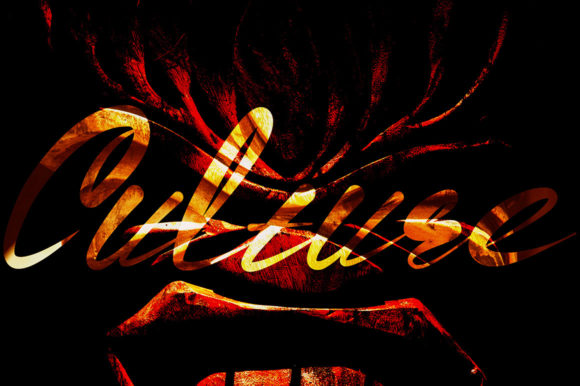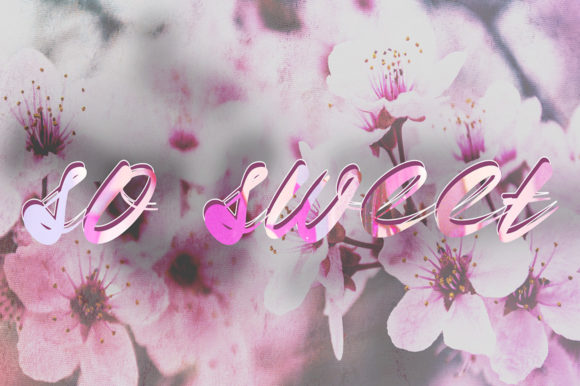
Discover the Elegance of Culture Font
Have you ever found yourself stuck in a creative rut, searching for that perfect font to elevate your design from ordinary to extraordinary? I know I have. It’s like trying to find a needle in a haystack, except the needle is a beautiful, flowing script font that exudes elegance and class. And then, one day, you stumble upon it – Culture Font.
Crafted specifically for those who crave a beautiful and refreshing look, Culture Font is more than just a font – it’s an experience. Its lovely script design makes it the perfect choice for designers who want to add a touch of sophistication to their projects. Whether you’re working on a branding project, a wedding invitation, or a website, Culture Font is sure to impress.
- Unique Characteristics: Culture Font features a unique blend of traditional and modern design elements, making it suitable for a wide range of applications, from body text to display typography.
Designer Review: Culture Font
Overall, I’d say Culture Font has some great qualities, but also a few areas that need improvement. Let’s dive in.
- Culture Font has a unique and refreshing style that’s perfect for designers looking for something modern and sleek.
- The font’s wide range of weights and styles makes it incredibly versatile and suitable for a variety of projects.
- The font is highly legible, even at smaller sizes, making it a great choice for digital design.
- Culture Font can feel a bit too experimental and edgy for some projects, making it difficult to pair with other fonts.
- The font’s complexity can make it difficult to read in certain contexts, particularly in print design.
- The font’s wide range of weights and styles can be overwhelming for designers who prefer a more streamlined approach.
Culture Font is a solid choice for designers who want to push the boundaries of typography. While it’s not perfect, its unique style and versatility make it a great addition to any designer’s toolkit. However, it may not be the best choice for designers who prefer a more traditional or conservative approach.
Culture Font is perfect for:
- Brand identity and logos
- Social media graphics and posts
- Business cards and stationery